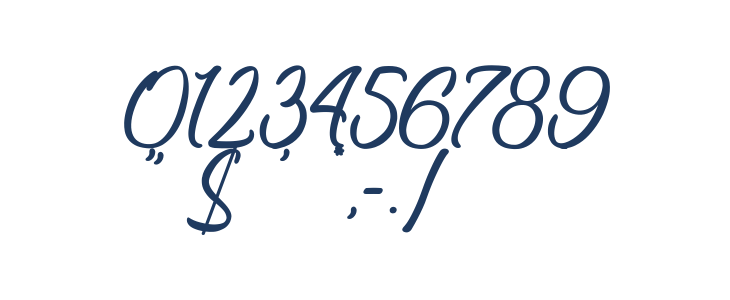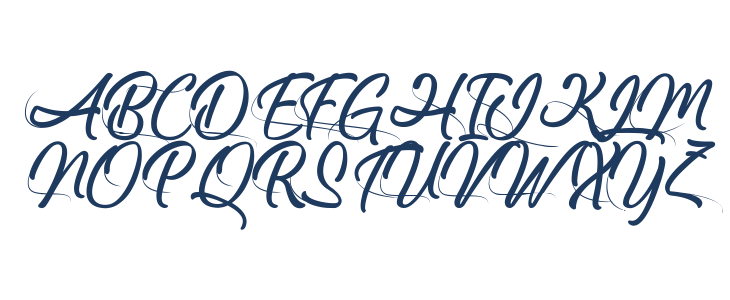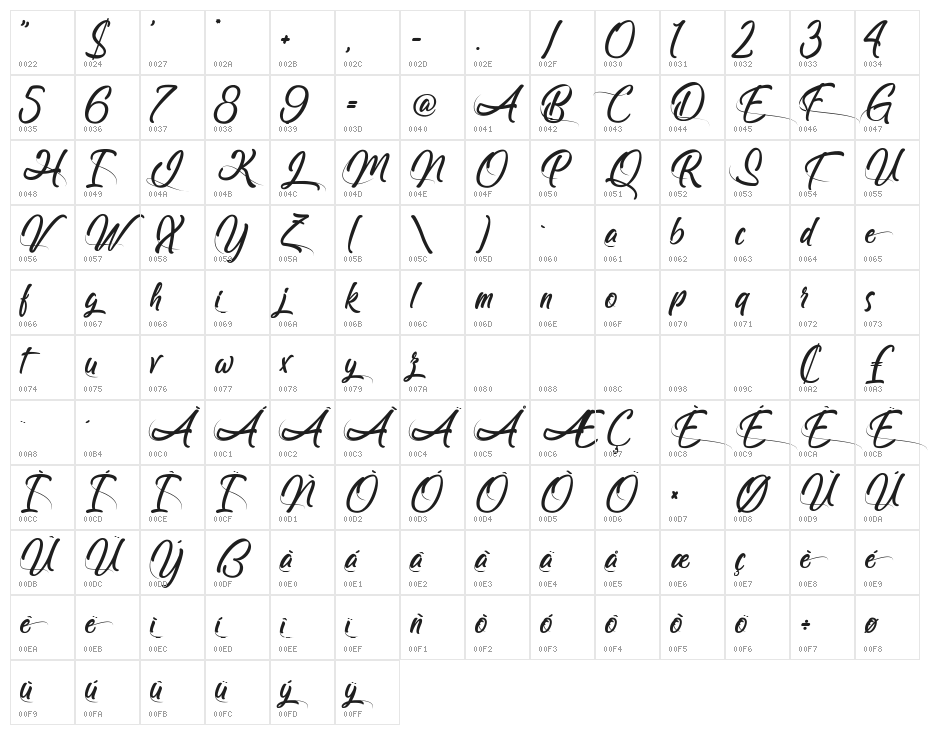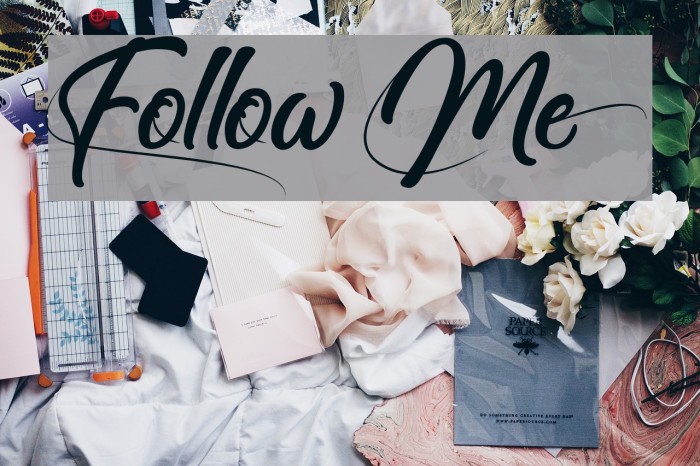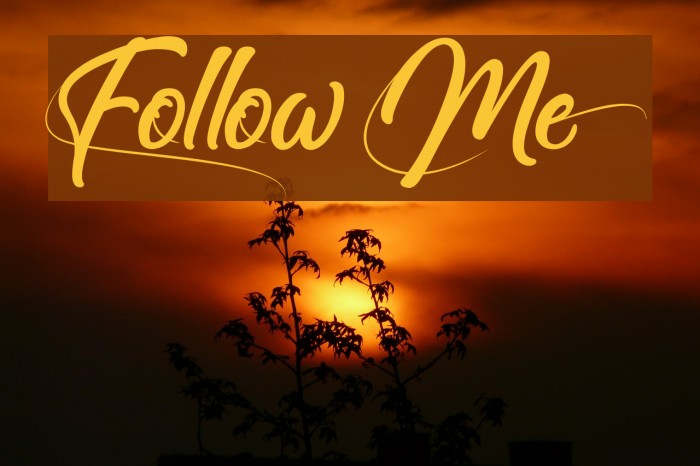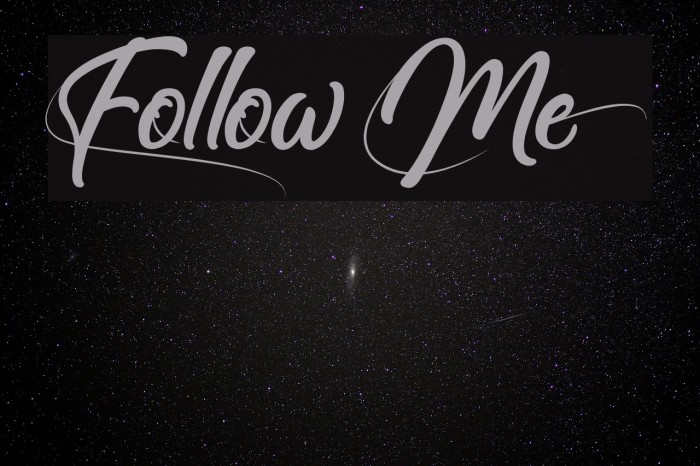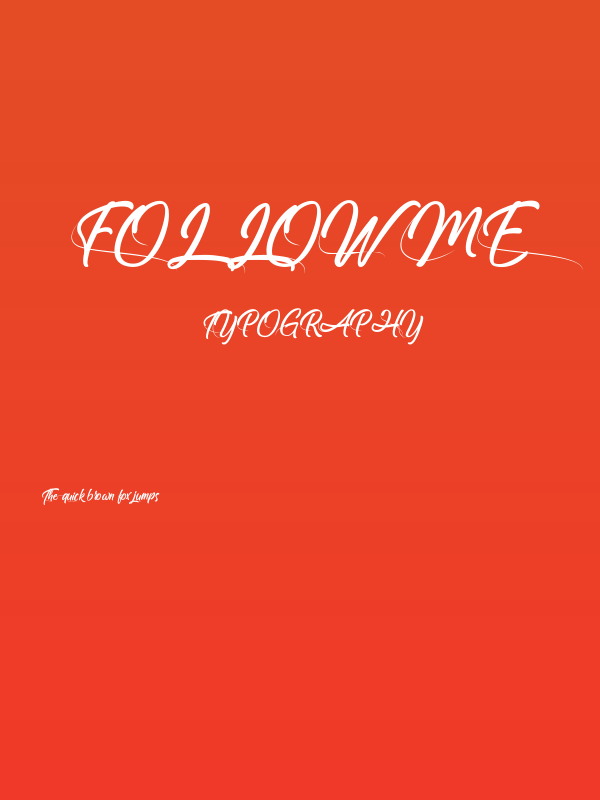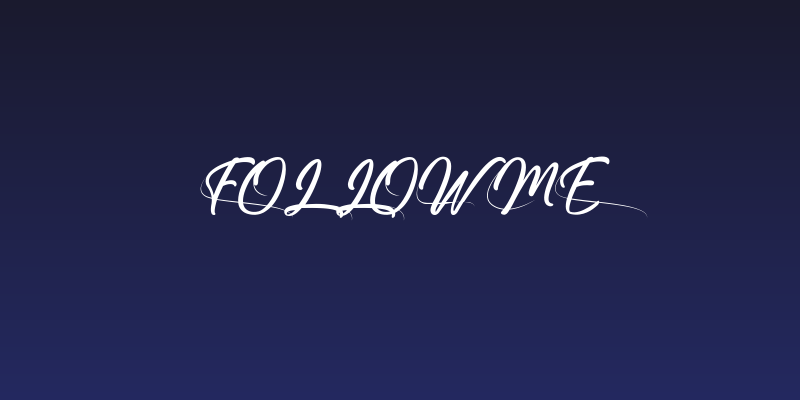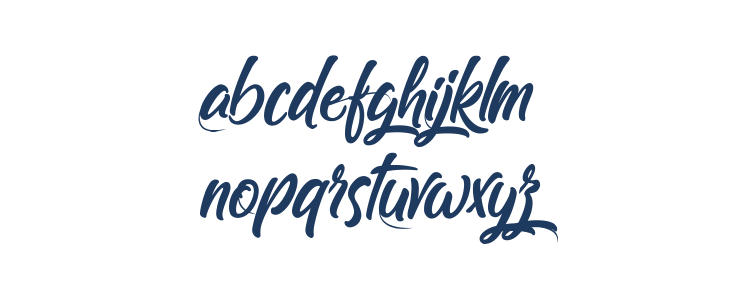
Follow Me Font
Follow Me Description
This font features a dynamic and elegant script style with flowing, interconnected letters that create a sense of movement and sophistication. The uppercase letters are ornate, with sweeping curves and flourishes that add a decorative touch. The lowercase letters maintain a consistent flow, enhancing readability while retaining an artistic flair. Numbers and special characters are designed with the same attention to detail, ensuring a cohesive look across all elements. The overall appearance is both stylish and versatile, making it suitable for a variety of design applications.
| Proposed Projects | Ideal for wedding invitations, branding, logos, and elegant packaging designs. |